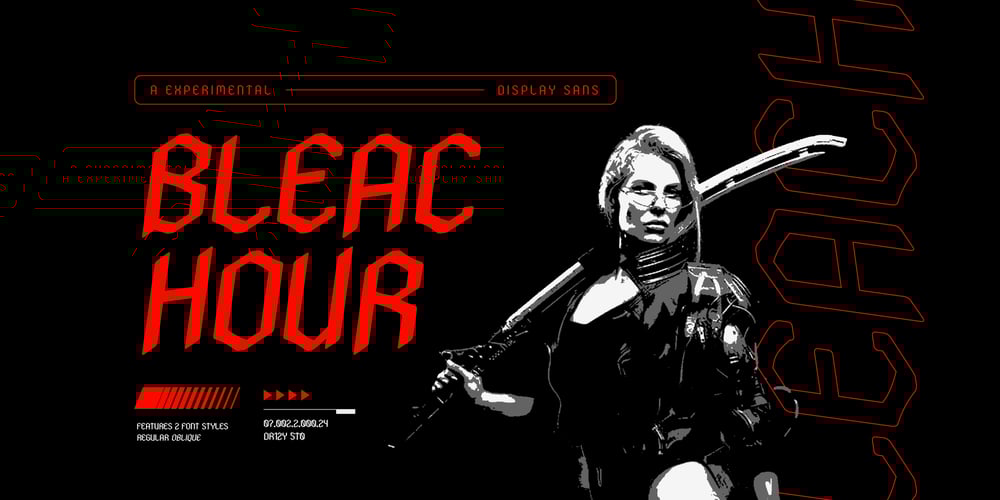
Bleachour
Bleachour font
Bleachour Font Family was designed by Panca Ahmadi Hasan and published by Drizy Font. Bleachour contains 2 styles and family package options. Bleachour – Experimental Display FontBleachour is a captivating and avant-garde experimental display font that pushes the boundaries of traditional typography. Designed for those who seek to make a bold statement, this font exudes a unique blend of modernity and edgy sophistication. Let your designs roar with the untamed creativity of Bleachour, the Experimental Display Font that brings the Monster and Kaiju-inspired aesthetic to the forefront of your typographic endeavors.Bleachour features: All Caps Punctuations & Numbers Multilingual Elevate and explore the design possibilities with this Sans Serif Old Styled Font!Check out our other font!